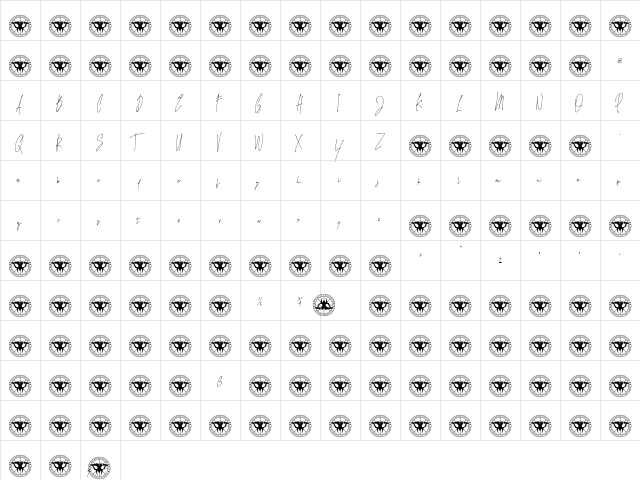
James Black Regular
| Foundry | Motokiwo |
| Designer | Anton Cahyono |
Design Context for James Black Typeface
James Black is a composed and adaptable typeface that performs quietly and consistently across a wide range of design contexts.